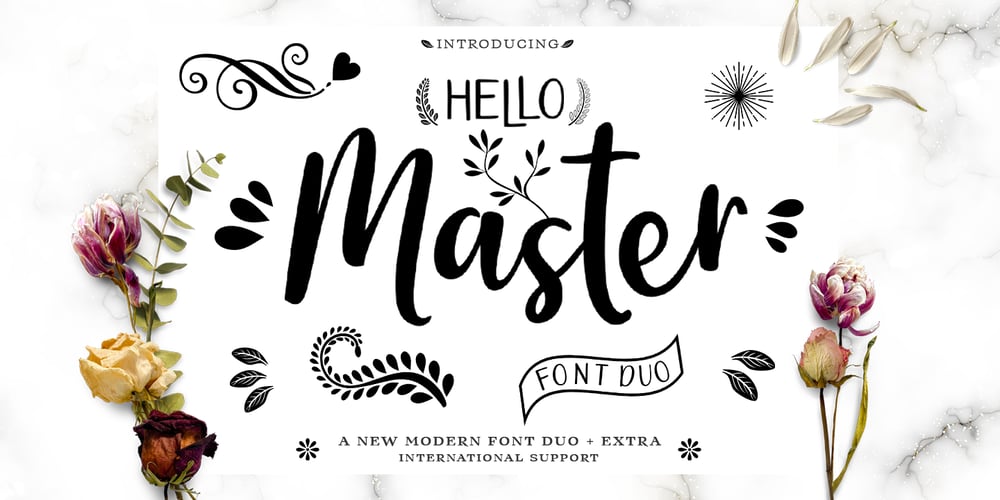
Hello Master
Hello Master font
Hello Master Font Family was designed by Rinaldi Novianda and published by Alpha Bento. Hello Master contains 3 styles and family package options. Hello Master Script Font DUO This type is a new modern script font with an irregular base line. Trendy and feminine style. Hello Master Script Font DUO looks beautiful in wedding invitations, thank you cards, quotes, greeting cards, logos, business cards, and more. Perfect for use in ink or watercolors. Including beginning and end letters, alternatives and support for many languages.To enable the OpenType Stylistic alternative, you need a program that supports OpenType features such as Adobe Illustrator CS, Adobe Indesign & CorelDraw X6-X7, Microsoft Word 2010 or newer versions. There are several additional ways to access alternatives / swashes, using Character Maps (Windows), Nexus Fonts (Windows), Font Books (Mac) or software programs such as PopChar (for Windows and Mac).How to access all alternative characters:- http://youtu.be/iptSFA7feQ0- https://www.youtube.com/watch?v=Go9vacoYmBwNeed help or have a question, let me know I am happy to help 🙂 Thank you & Congratulations on Design! Best Regards,Alpha Bento